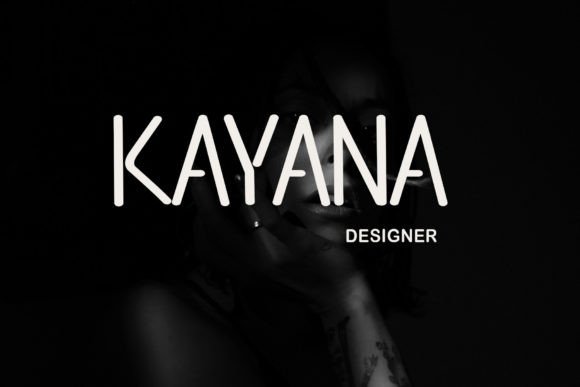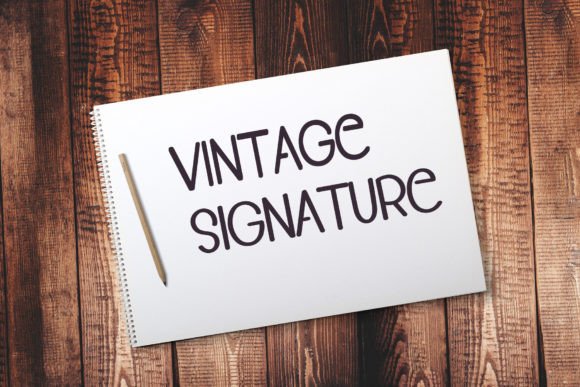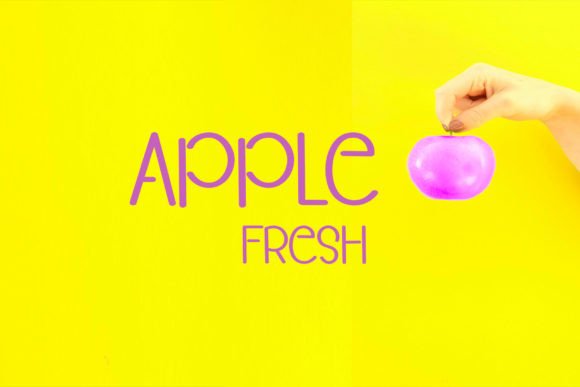
Introduction to Kayana Font
Have you ever been in the midst of a creative project, searching for the perfect font to bring your design to life? I’m sure we’ve all been there – staring at a blank page, scrolling through font options, and finally finding that one font that makes everything click. For me, that moment came when I discovered the Kayana Font, a beautiful and elegant handwritten font that has been a game-changer in my design process.
With its unique, timeless style, the Kayana Font is the perfect addition to any design project. Its versatility makes it suitable for a wide range of creative endeavors, from brochures and posters to social media graphics and more. Whether you’re a seasoned designer or just starting out, the Kayana Font is a valuable resource that can elevate your designs and make them stand out from the crowd.
What sets the Kayana Font apart is its high-quality design and transparent background, making it easy to use and customize for any project. And the best part? It’s available for free download, making it an accessible design resource for designers of all levels.
Key Features of Kayana Font
- Features a unique, modern design aesthetic, making it an excellent choice for contemporary creative projects.
Honest Review: Kayana Font
I recently had the chance to work with the Kayana Font, and I must say it’s a solid addition to any designer’s toolkit. The high-quality design makes it perfect for creative projects where you need a clean, modern look.
- ✨ Easy to use and customize: The Kayana Font comes in a range of weights and styles, making it easy to find the perfect fit for your project.
- ✨ Beautifully crafted: The attention to detail in the design is impressive, with a focus on clean lines and a transparent background that makes it perfect for use on both light and dark backgrounds.
However, I did find a few limitations with the Kayana Font:
- ⚠️ Limited language support: Unfortunately, the Kayana Font only includes support for a limited number of languages, which may be a issue for designers who need to work with clients from different regions.
- ⚠️ Not ideal for large-scale use: While the Kayana Font is perfect for small to medium-sized projects, it may not be the best choice for large-scale use, such as in books or other long-form content.
Overall, I was impressed with the Kayana Font and would definitely recommend it to designers who are looking for a high-quality, easy-to-use font for their creative projects.
The Kayana Font is a high-quality design resource that can elevate your creative project to the next level. With its unique and elegant style, it’s perfect for a wide range of applications.
The Kayana Font is perfect for:
- Wedding invitations and stationery.
- Business cards and marketing materials.
- Wedding and event planning.